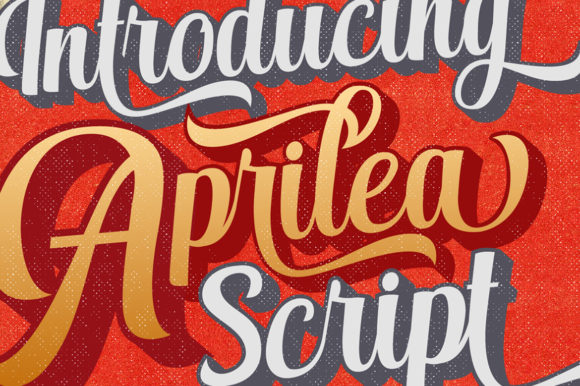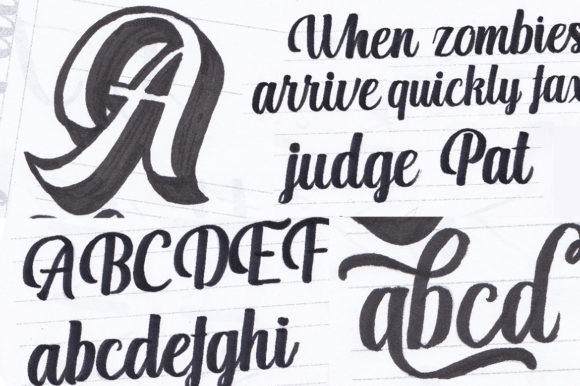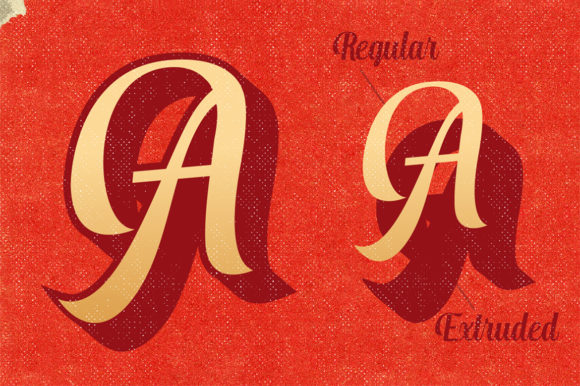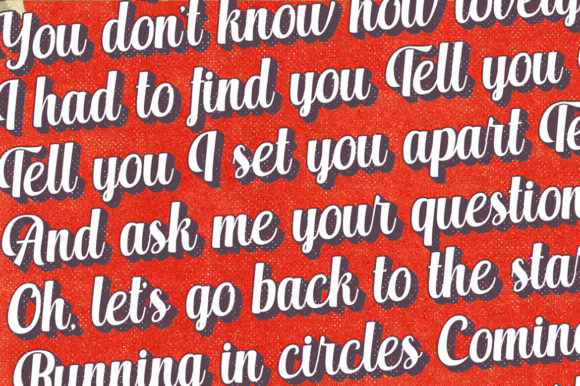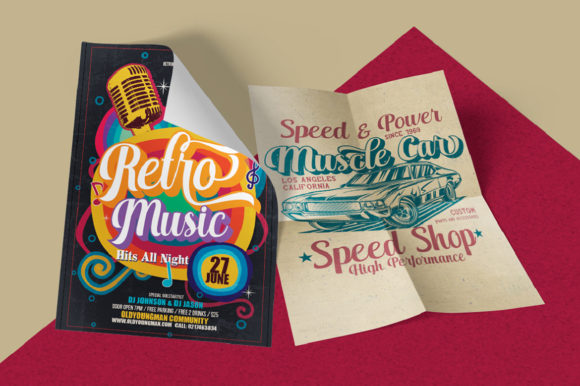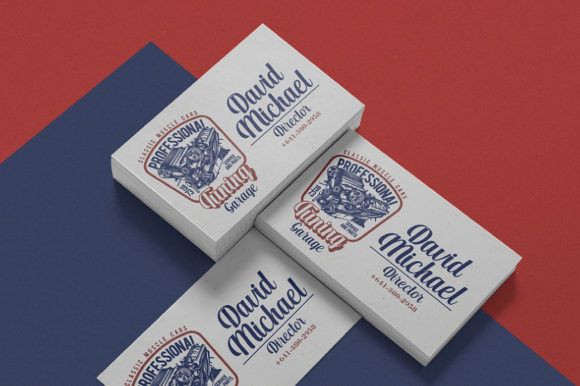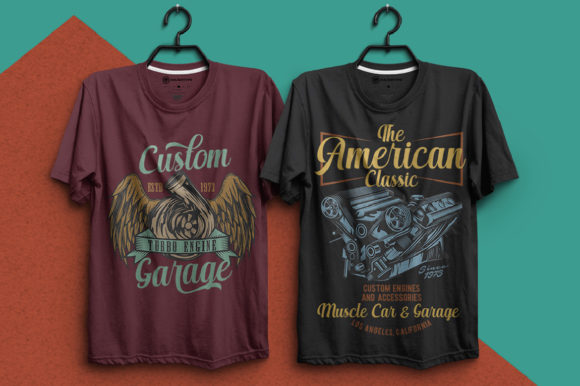
Aprilea Script Font
About Aprilea Script Font
Aprilea is a fun and cute handwritten font with an authentic twist. Get inspired, and add an organic feel to any design project!